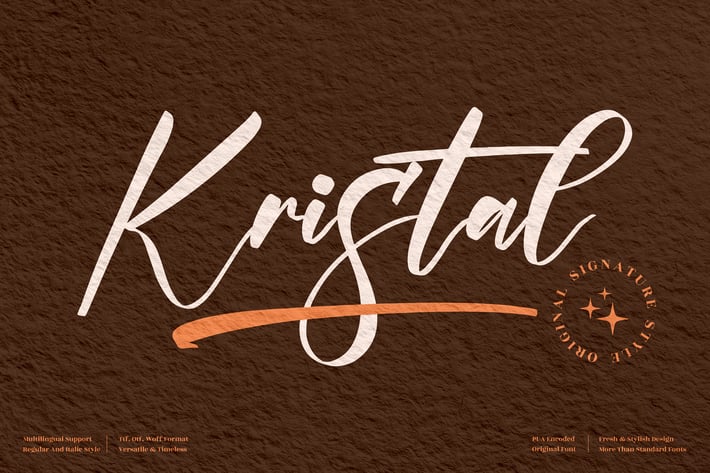
Kristal Signature Handwritten Font
Kristal is a stylish handwritten signature font that blends modern sophistication with organic flow. Designed to look effortlessly elegant, it’s perfect for projects that need a personal, luxurious touch. Each curve and stroke feels natural, creating an authentic signature look ideal for premium design works.
Modern handwritten signature style
Smooth, flowing strokes with natural curves
Perfectly balanced spacing for clean readability
Branding and fashion logos
Social media visuals and photography watermarks
Product packaging and boutique designs
Elegant invitations and stationery
* Lifestyle blogs and signature-style titles
Bring a touch of authenticity and charm to your design — Kristal speaks the language of elegance.